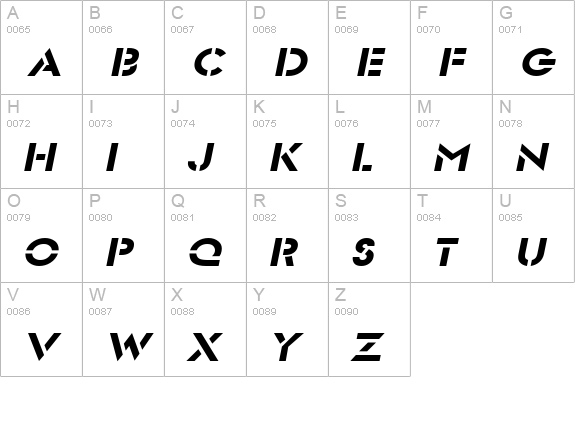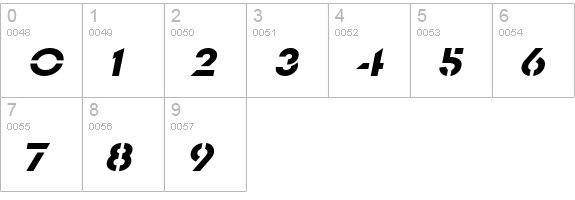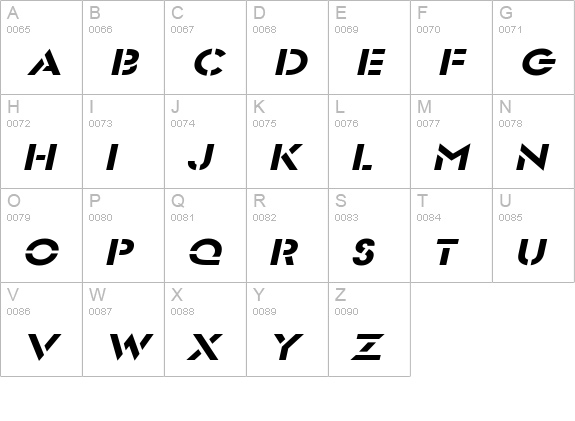
Templett Wide Italic Font Details
Templett Wide Italic is a distinctive, extended-width, italic variant in the Templett typeface family \xE2\x80\x94 well suited to design and typography projects.
Templett Wide Italic is a sleek and elegant font that effortlessly combines modernity with a touch of sophistication. With its elongated and slightly slanted letterforms, this font exudes a sense of style and grace, making it perfect for a wide range of design projects. The free Templett Wide Italic font offers a versatile and contemporary aesthetic, making it suitable for both digital and print designs. Whether you're creating striking headings, stylish logos, or eye-catching invitations, this font will add a touch of elegance to any project. The clean and legible letterforms of Templett Wide Italic make it easy to read, ensuring that your message is effectively conveyed to your audience. Its wide proportions give your text a bold and impactful presence, commanding attention and leaving a lasting impression. What's more, Templett Wide Italic is freely available to download at FontsMarket.com. This means that you can easily access and incorporate this stunning font into your designs without any cost. Whether you're a professional designer or a passionate enthusiast, Templett Wide Italic allows you to elevate your projects with its exquisite aesthetic, all without breaking the bank. Don't miss out on the opportunity to enhance your designs with Templett Wide Italic. Download this free font today from FontsMarket.com and let your creativity soar to new heights.